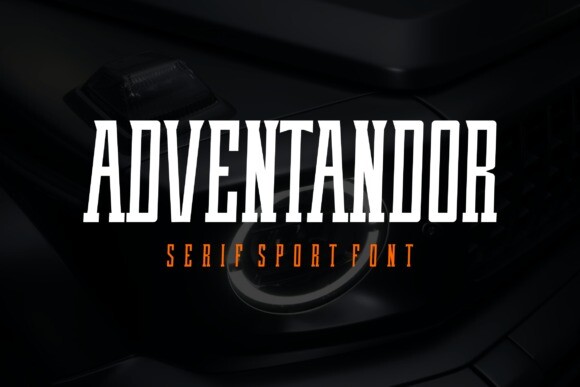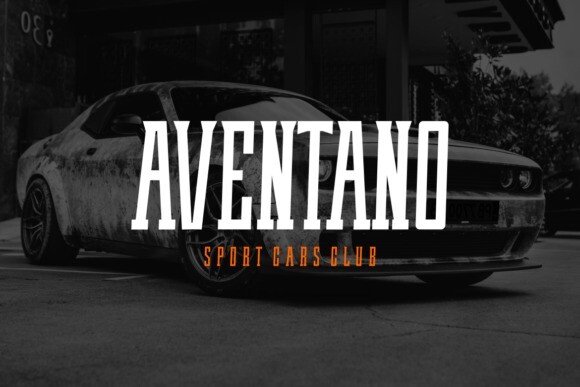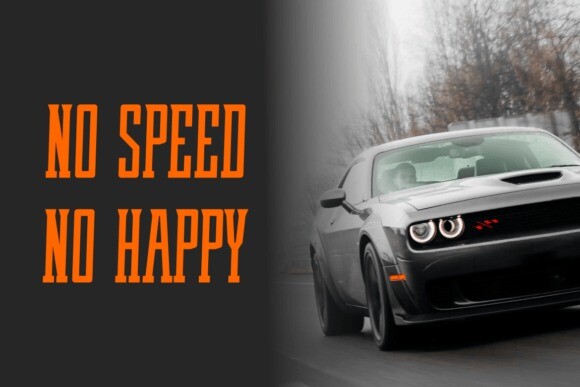
Adventandor Font
Adventandor Font – Modern Font is a bold and authentic display font. The font is suitable for any branding project like logo, esport, and many more. outstanding in a wide range of contexts.